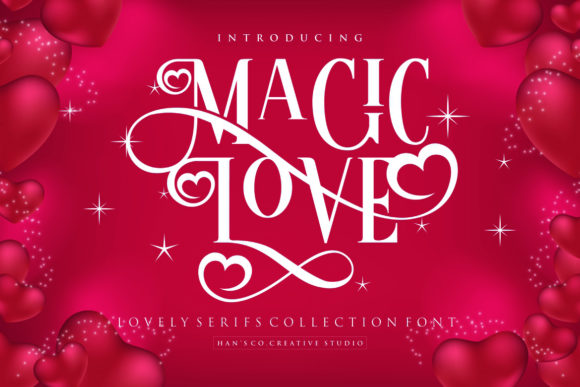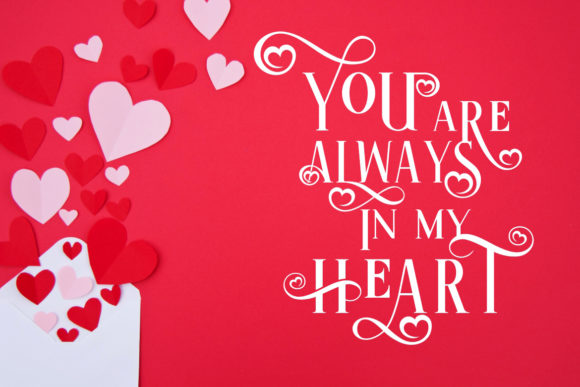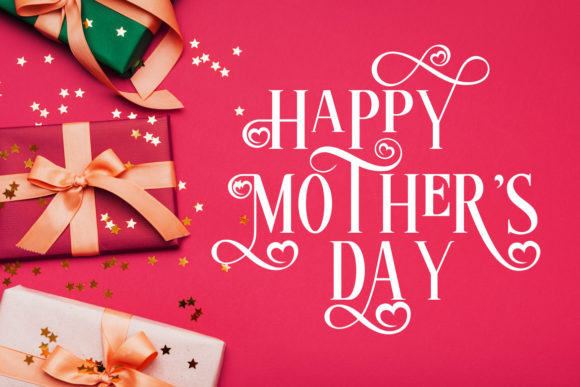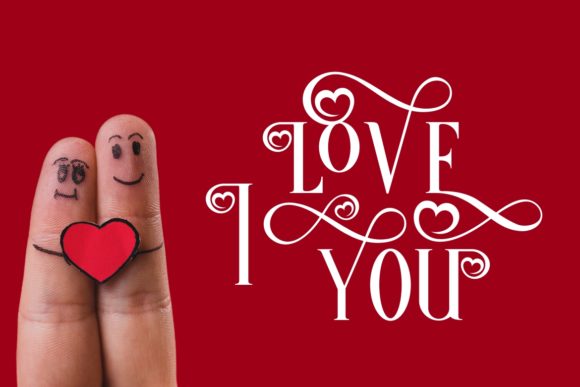
Magic Love Font: Romantic Serif for Wedding & Valentine’s Day
About the Magic Love Font
Meet Magic Love Font, a stunning font that brings a touch of elegance and professionalism to any design. This beautiful and romantic serif font is all you need for your Valentine’s cards. Use Magic Love to add a romantic touch to all your designs! It has amazing swashes and alternates.
Magic Love’s elegant swashes and romantic serifs make it ideal for wedding invitations, branding for luxury goods, or short, impactful headlines in brochures. Its decorative nature, however, limits its use; avoid using it for body text or UI elements where readability is paramount. Long paragraphs set in Magic Love will be difficult to read.
Consider pairing Magic Love with a clean sans-serif like Montserrat for a balanced contrast – Montserrat’s neutrality grounds the font’s romantic flourish. Alternatively, a playful script font could enhance the overall whimsical feel, but choose one with less ornate detailing to prevent visual clutter.
The font projects a sophisticated yet playful personality, best suited for brands aiming for a touch of vintage charm or romantic elegance. It’s less appropriate for projects needing a modern or minimalist aesthetic.